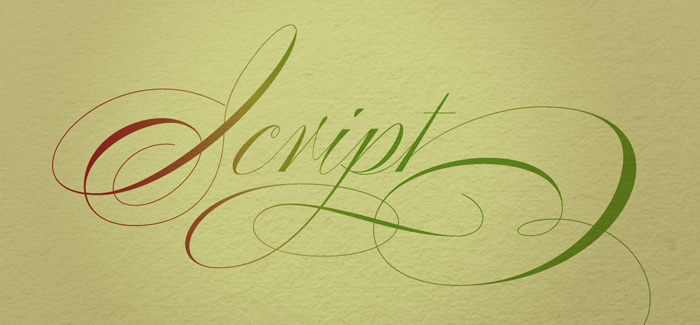
Poem Script Pro font
Poem Script Pro font by Alejandro Paul (Sudtipos foundry) is designed in the spirit of the 19th century American pen script tradition. It’s a full reflection of the incredible control and skills of the old craftsmen to transform poetry, emotions, feelings and movements into incredible ornamental letterforms.
Unique, elegant and charming, Poem Script features large number of alternates on every letter allowing the designer to customize a single word, sentence or even paragraph. Poem Script Pro font is so flexible that one could create a logo easily by using its special OpenType features.
Hundreds of calligraphic ornaments come with Poem Script giving you the chance and freedom to create unique designs following the tradition of the great masters of pen dating back some 200 years ago.
Features:
– 1708 glyphs including six styles of capitals, multiple ending characters, and alternates designed specifically for use after capital letterforms
– Numerous initial and ending swashes add elegance to composition. Flourished characters are even included for the dot of the “i”
– Flourished ornaments and miscellaneous items include avian forms in the ornamental penmanship tradition.
Poem Script Pro font received a Certificate of Excellence at the TDC 2011 and was selected at the Bienal Tipos Latinos 2012.
Designers: Alejandro Paul
Publisher: Sudtipos